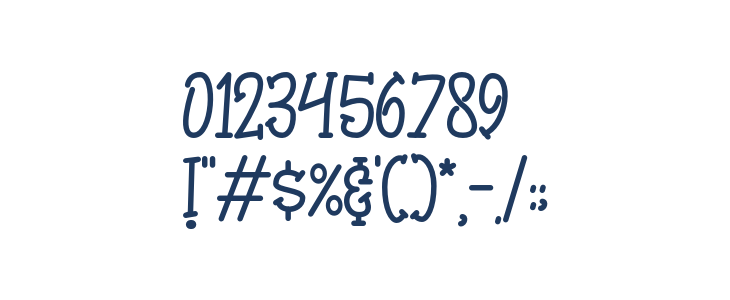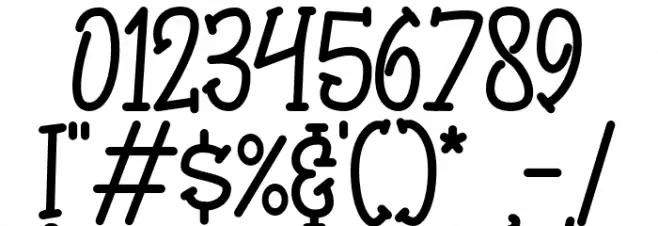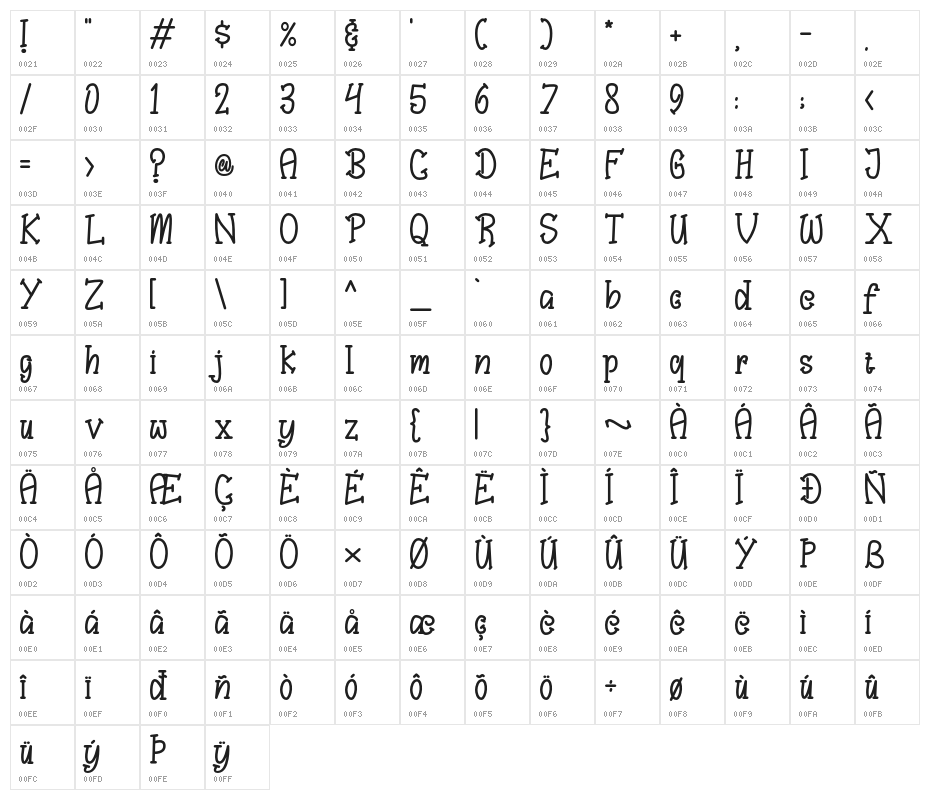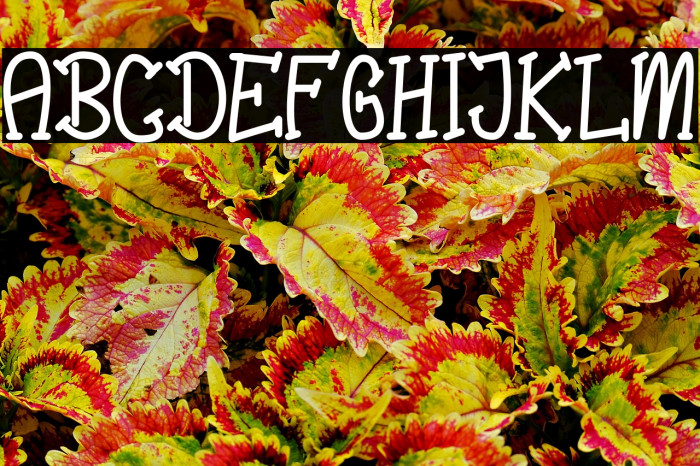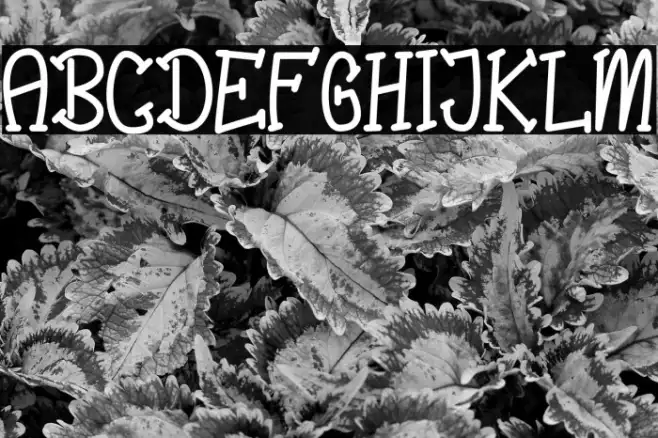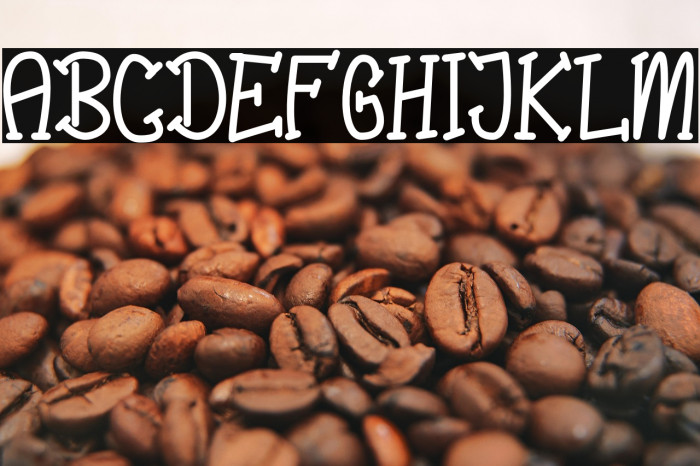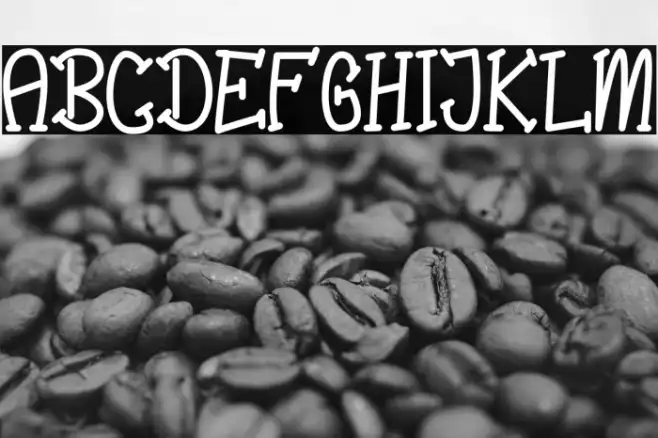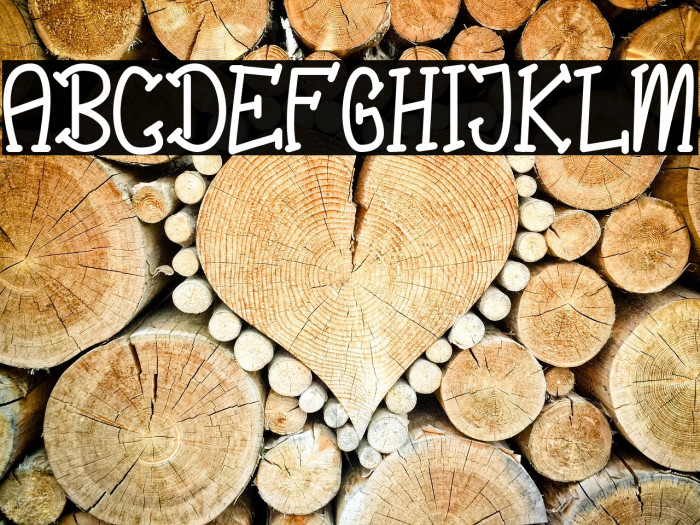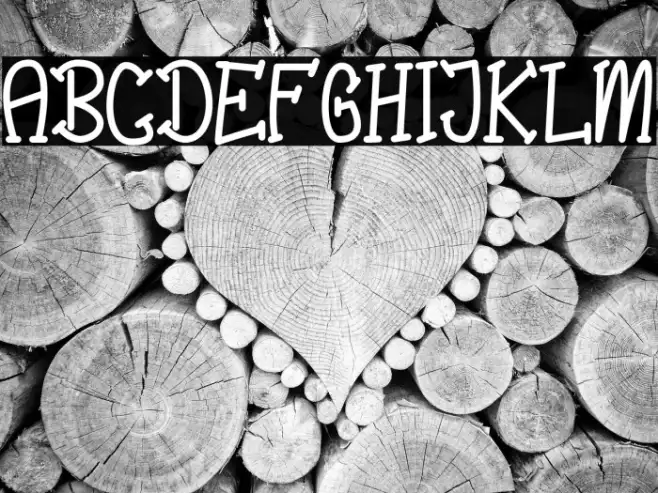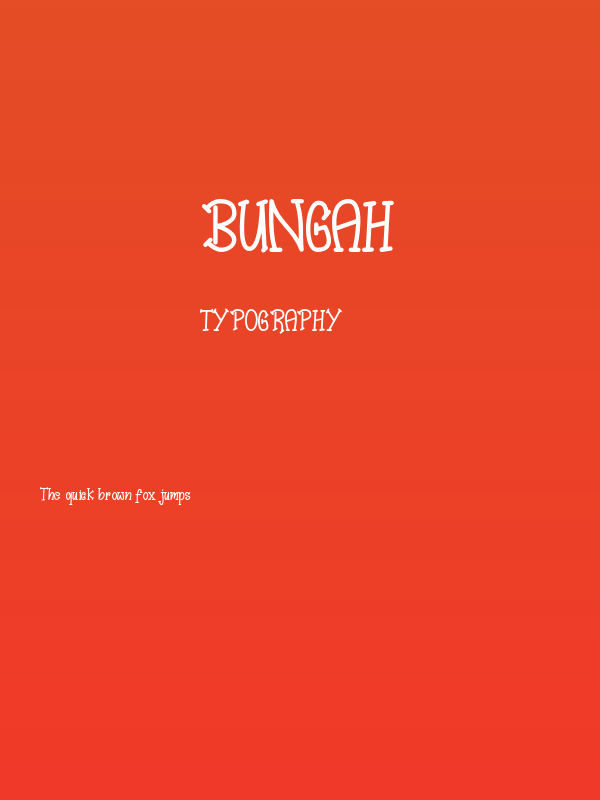
Bungah Font
Bungah Description
This font features a playful and whimsical design with a handwritten style. The characters have a unique, slightly irregular shape, giving them a lively and informal appearance. The strokes are bold and consistent, with rounded edges that add to the friendly and approachable feel. The uppercase and lowercase letters maintain a cohesive style, while the numerals and special characters complement the overall look. This font's distinct personality makes it suitable for creative and fun projects.
| Proposed Projects | Ideal for children's books, greeting cards, playful branding, and creative posters. |